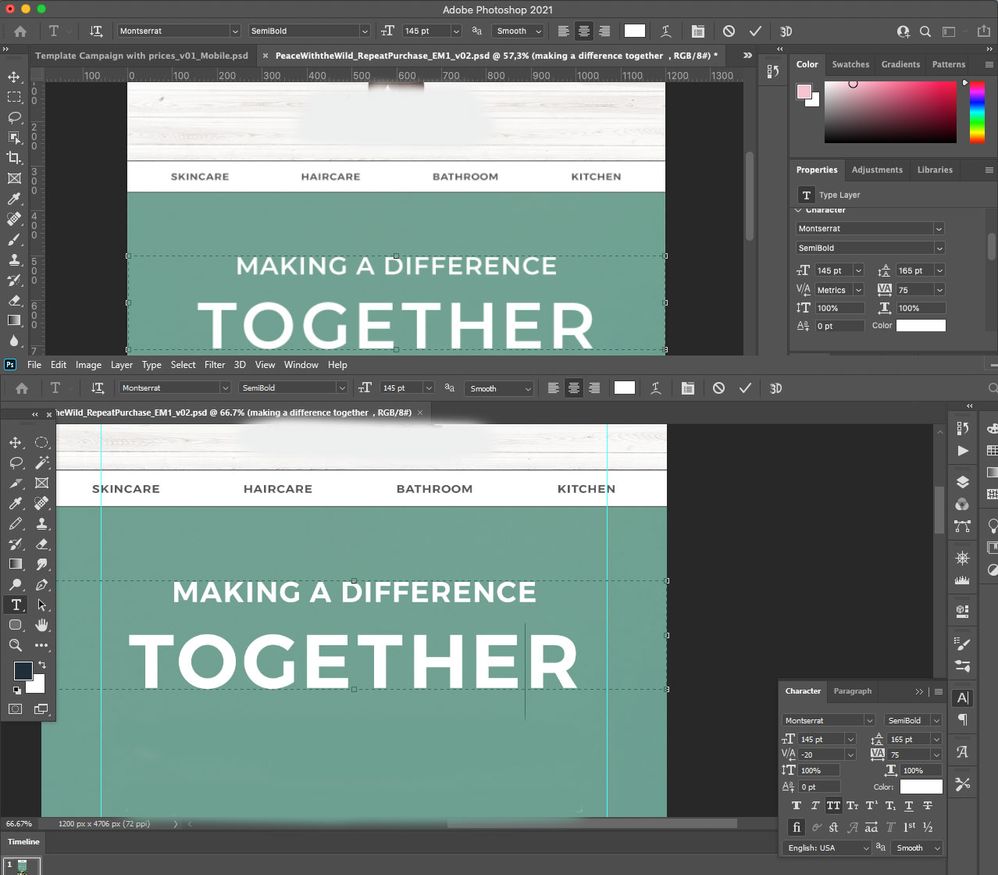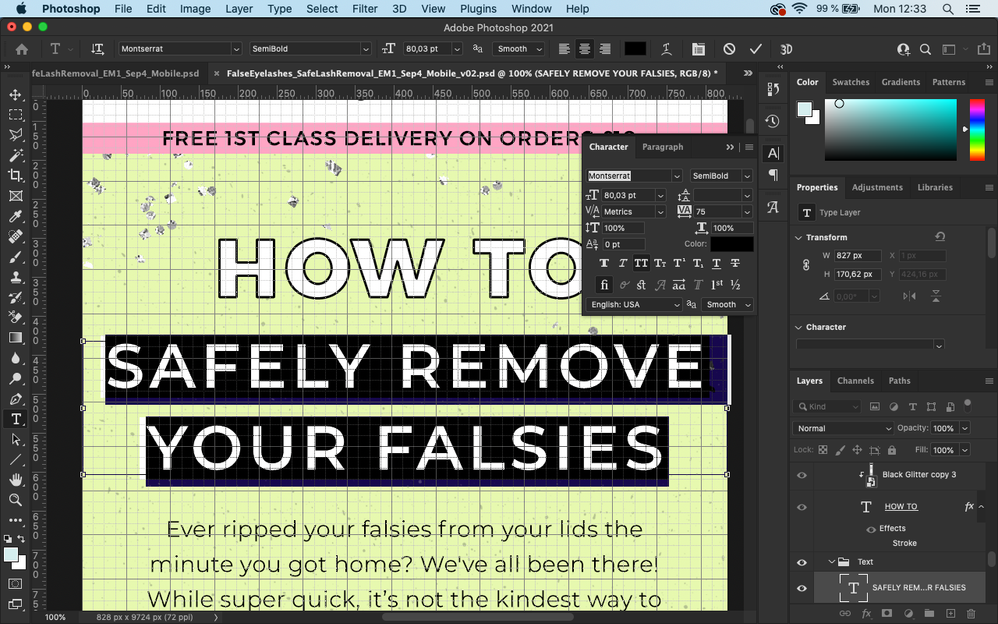
Font style changing automatically [2021]
So I receive templates from someone using PS CC 2021, same as me, Adobe Fonts, same as me, working on Mac, same as me, but everytime I click the text to edit, it changes it's style, I can't find a workaround for this problem and is driving me crazy, here's an example, original on the left, how it looks as soon as I click on it on the right. It only happens with certain fonts, in this case it's Montserrat from Adobe Fonts.
So I receive templates from someone using PS CC 2021, same as me, Adobe Fonts, same as me, working on Mac, same as me, but everytime I click the text to edit, it changes it's style, I can't find a workaround for this problem and is driving me crazy, here's an example, original on the left, how it looks as soon as I click on it on the right. It only happens with certain fonts, in this case it's Montserrat from Adobe Fonts, I trully have no possible explanaiton as why it looks so different. I've already tried reinstalling but nothing works, installing from google fonts either.
I'll leave a screenshot from my computer (above) and from a coworker's (bottom)
The characters look the same, when adjusted for the different size screenshots, but the kerning looks different. Try putting the cursor between each letter and check the kerning values.
The weights are completely different, look at the example I linked in the text, it's from the same computer, same zoom. Mine looks a lot thinner than the original, it's like my font is a complete stop thinner, my bold looks almost as the original semibold.
It looks like one is Bold (or Fake Bold) and the other is not. Can you click an insertion point in the text and show a screen shot of the Character panel with the text? It would be helpful if we could see a similar screenshot from the other person as well.
Hi Jane, here you go, as I said we both have oficially downloaded Adobe Photoshop CC 2021 and both using Adobe Fonts. The above image is mine and the other one from my coworker.
Can you show another screenshot of both computers:
• Character panel, not Properties
• Select all of the text with the Type tool
• Use 100% zoom on both computers
• Show the guides in both computers
• Show the rulers in both computers